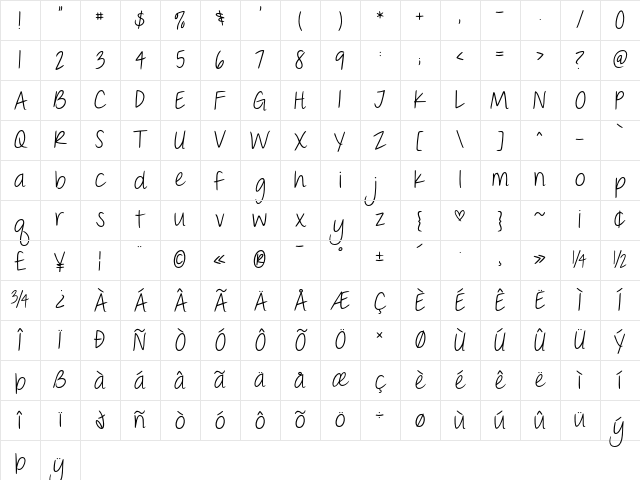
KG Wildways Regular Free Font
KG Wildways Regular
Designer: Kimberly Geswein
Complete KG Wildways Regular glyph index. Displaying only characters natively supported by KG Wildways Regular font.
Design Context for KG Wildways
KG Wildways is a composed and adaptable typeface that performs quietly and consistently across a wide range of design contexts.